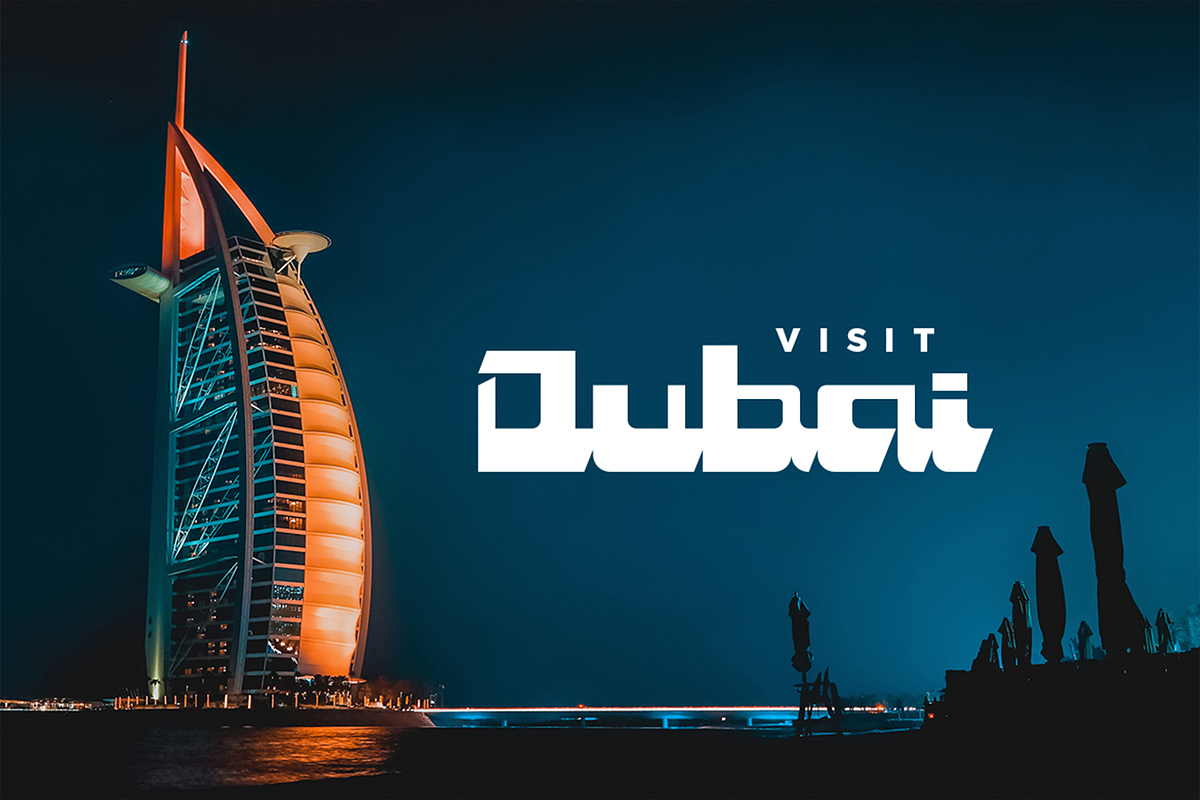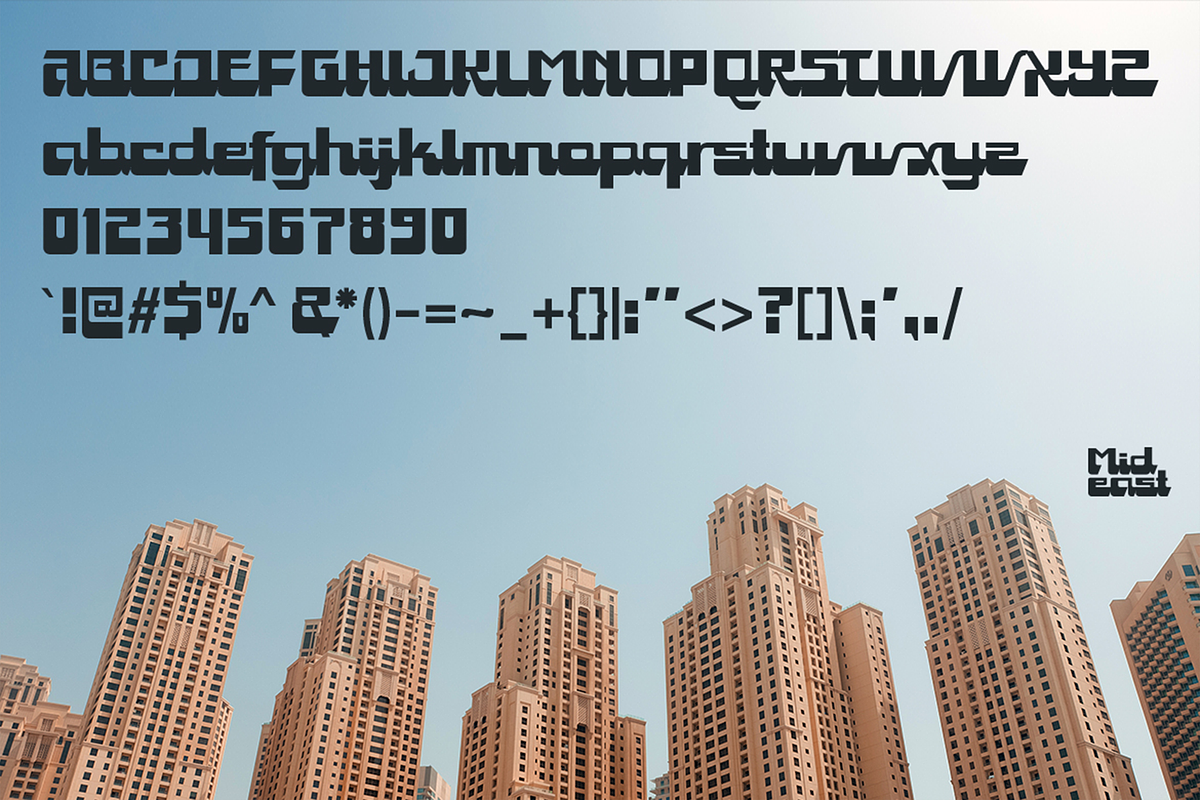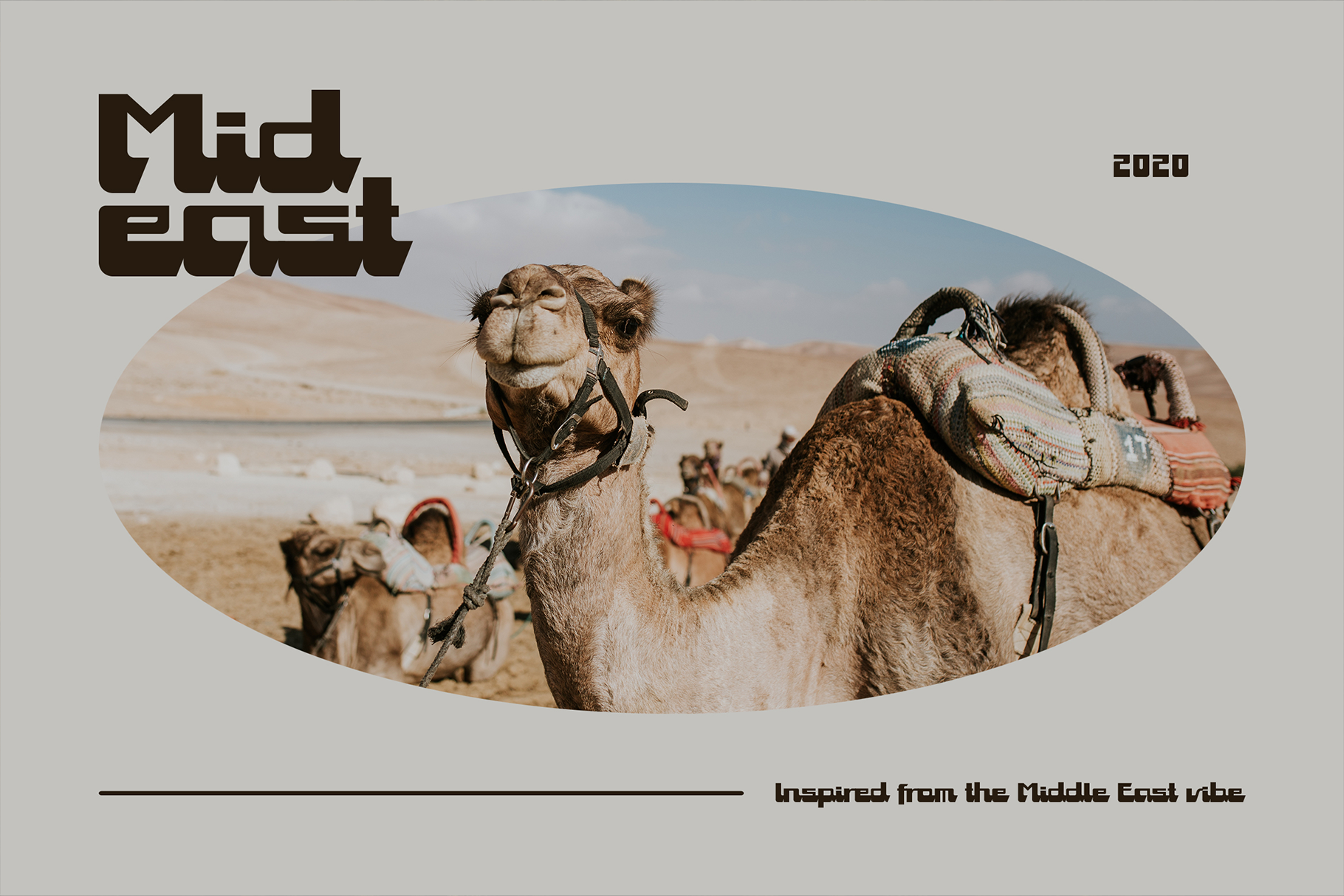
Mideast - Middle East Fonts
Inspired by the Middle East calligraphic shape, crafted into bold and script fonts.
Perfectly fit for Middle East Arabic design, hip hop fashion, logo, branding, push your visual to the edge and get ready to be the trendsetter.